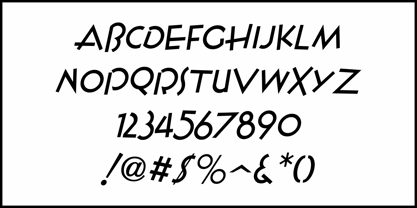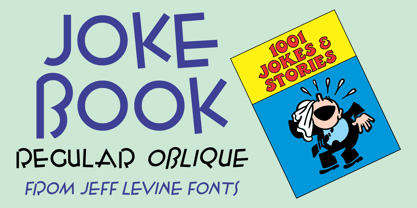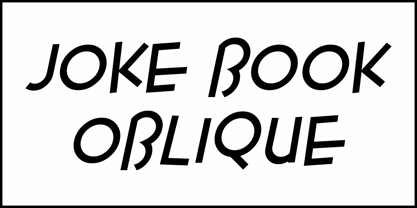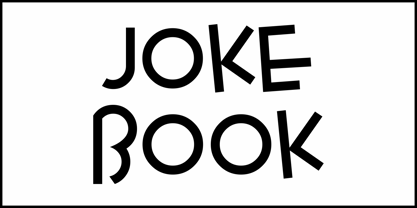
Joke Book JNL
by Jeff Levine
The Joke Book JNL Font Family was designed by Jeff Levine and published by Jeff Levine. Joke Book JNL contains 2 styles and family package options. More about this family
The playful, hand lettered sans serif of various article titles in the April, 1929 issue of Film Fun magazine inspired Joke Book JNL, which is available in both regular and oblique versions.